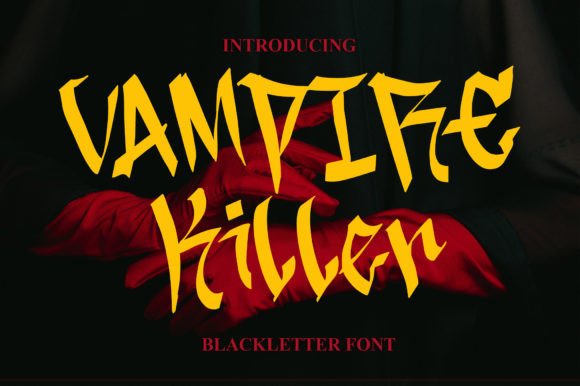
Adorn your creative endeavors with the captivating allure of Vampire Killer, a blackletter font brimming with vintage horror charm. Inspired by the haunting aesthetics of the past, this font possesses an enchanting aura that will cast a spell on your designs.
With Vampire Killer, you'll embark on a journey through time, where the macabre and the mystical intertwine. Its intricate letterforms, reminiscent of ancient manuscripts, evoke a sense of mystery and intrigue, making it the perfect choice for projects seeking a touch of the supernatural.
From spine-tingling Halloween themes to hauntingly beautiful drink bottle designs, Vampire Killer will add a touch of otherworldly elegance to your work. Let your imagination run wild as you craft logos that exude an air of sophistication and business cards that leave a lasting impression.
Unleash your creativity and embrace the dark allure of Vampire Killer. Its versatility knows no bounds, seamlessly adapting to a myriad of projects, from the eerie and unsettling to the simply stunning. Whether you seek to create packaging that captivates or banners that command attention, Vampire Killer will elevate your designs to new heights of excellence.